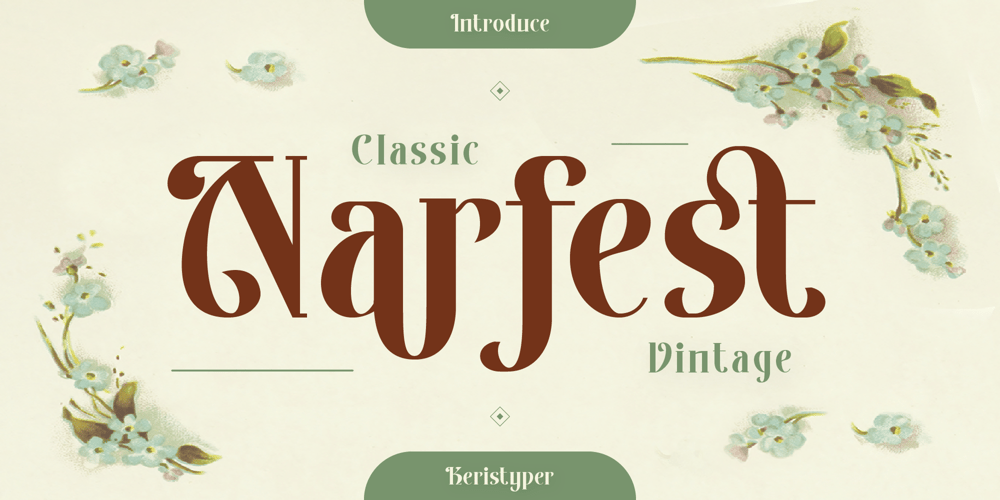
Narfest Font Family was designed by Tezar Tantular and published by Keristyper Studio. Narfest contains 1 styles and family package options. Narfest is a classic vintage serif font with an art nouveau style, in feminine and unique characteristics. This font is good for logo design, Social media, Movie Titles, Books Titles, short text even long text letters, and good for your secondary text font with script, sans, or serif.**Featured:*** Standard Uppercase & Lowercase* Numeral & Punctuation* Multilingual : ä ö ü Ä Ö Ü ß ¿ ¡* Alternate & Ligature* PUA encodedWe recommend programs that support the OpenType feature and the Glyphs panel such as Adobe applications or Corel Draw. so you can use all the variations of the glyphs.Hope you enjoy our fonts!